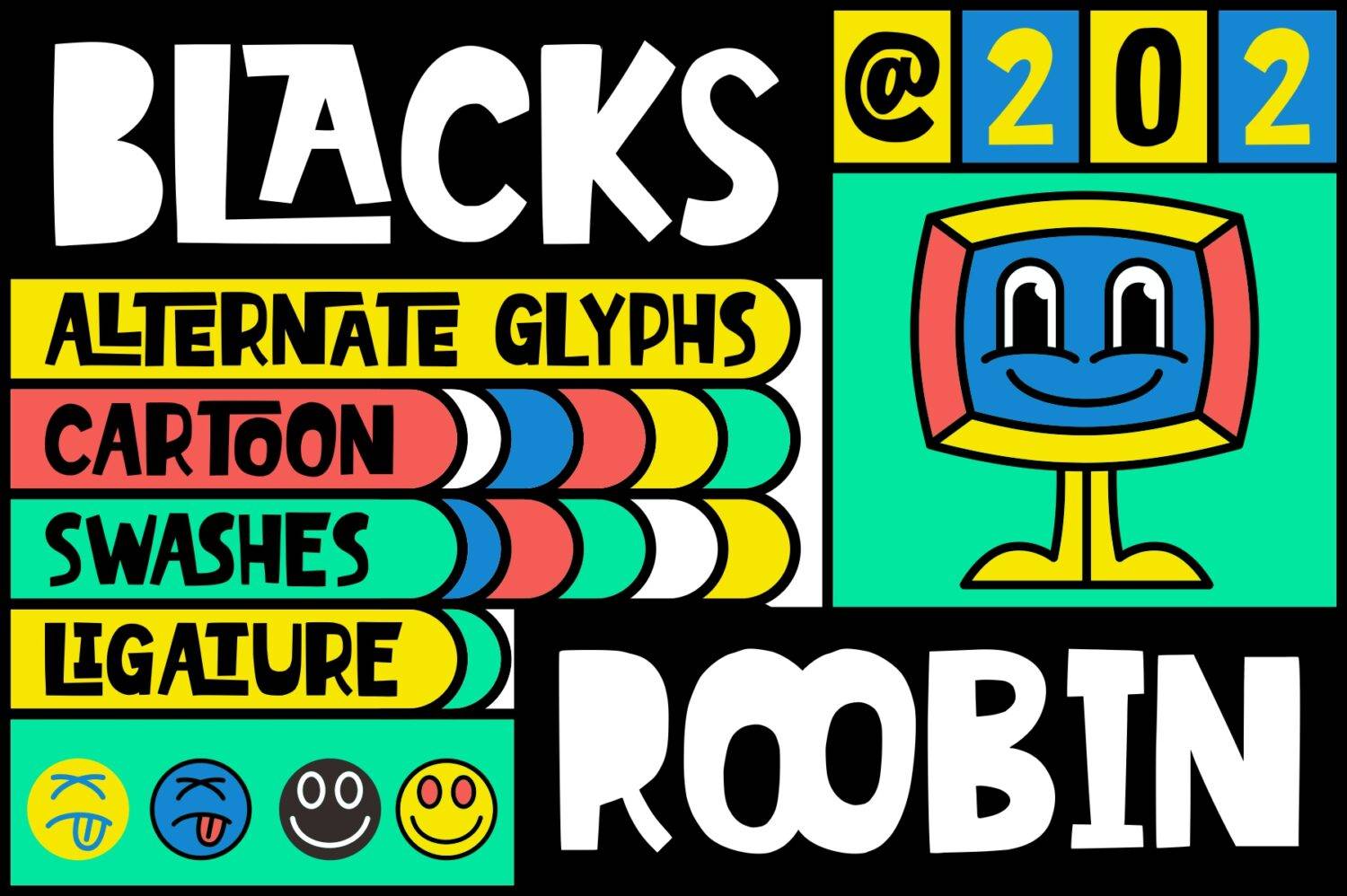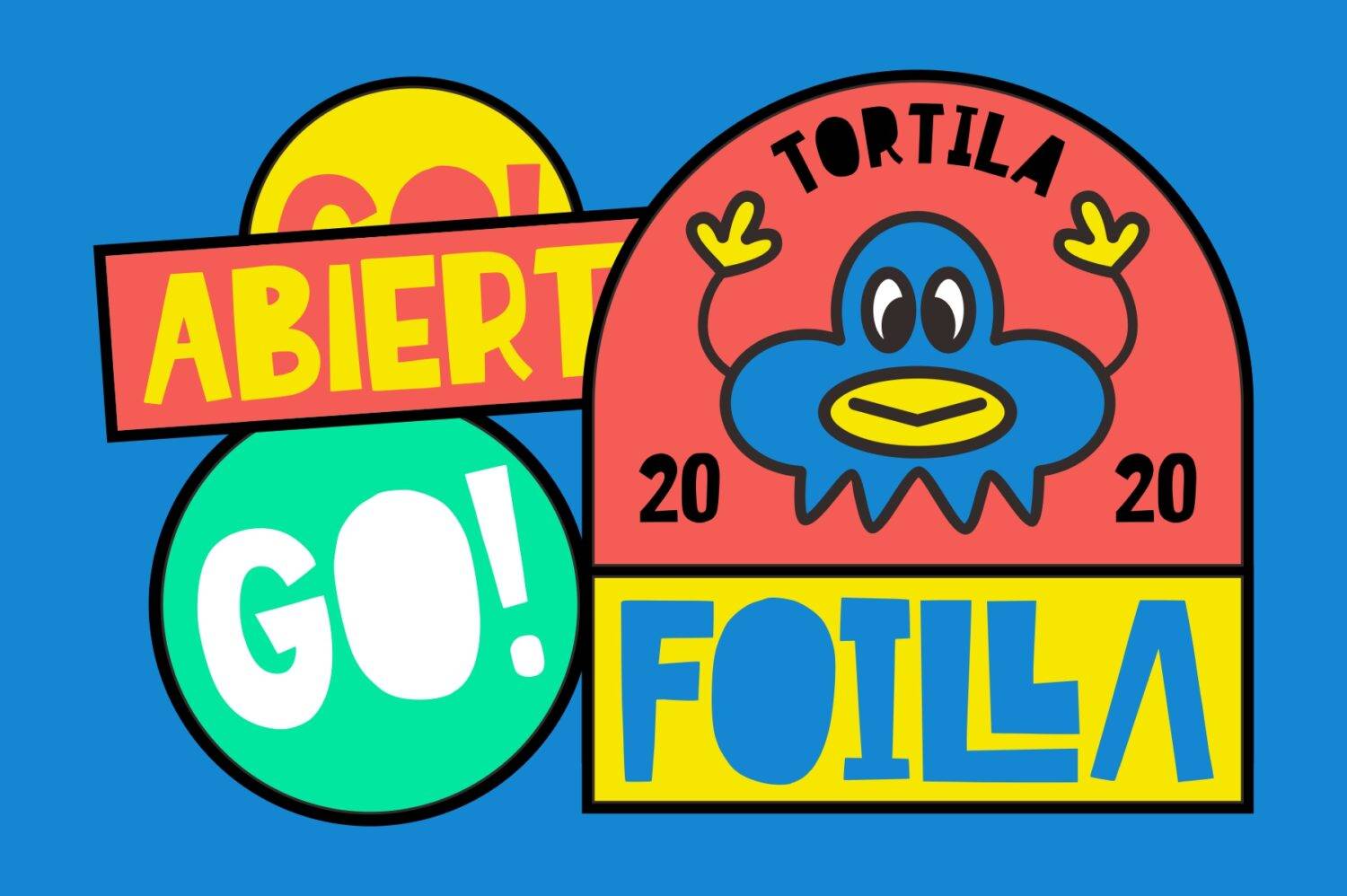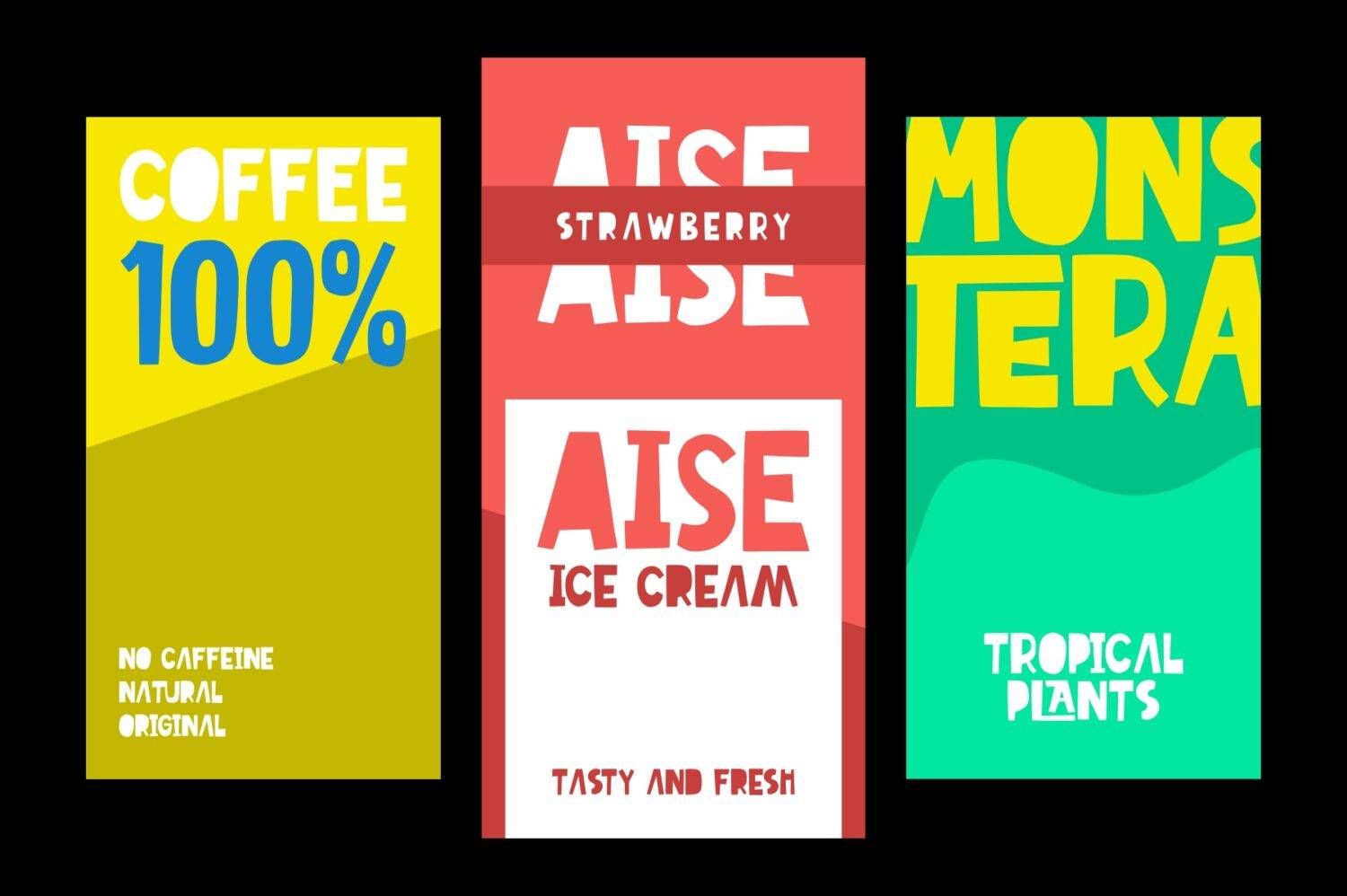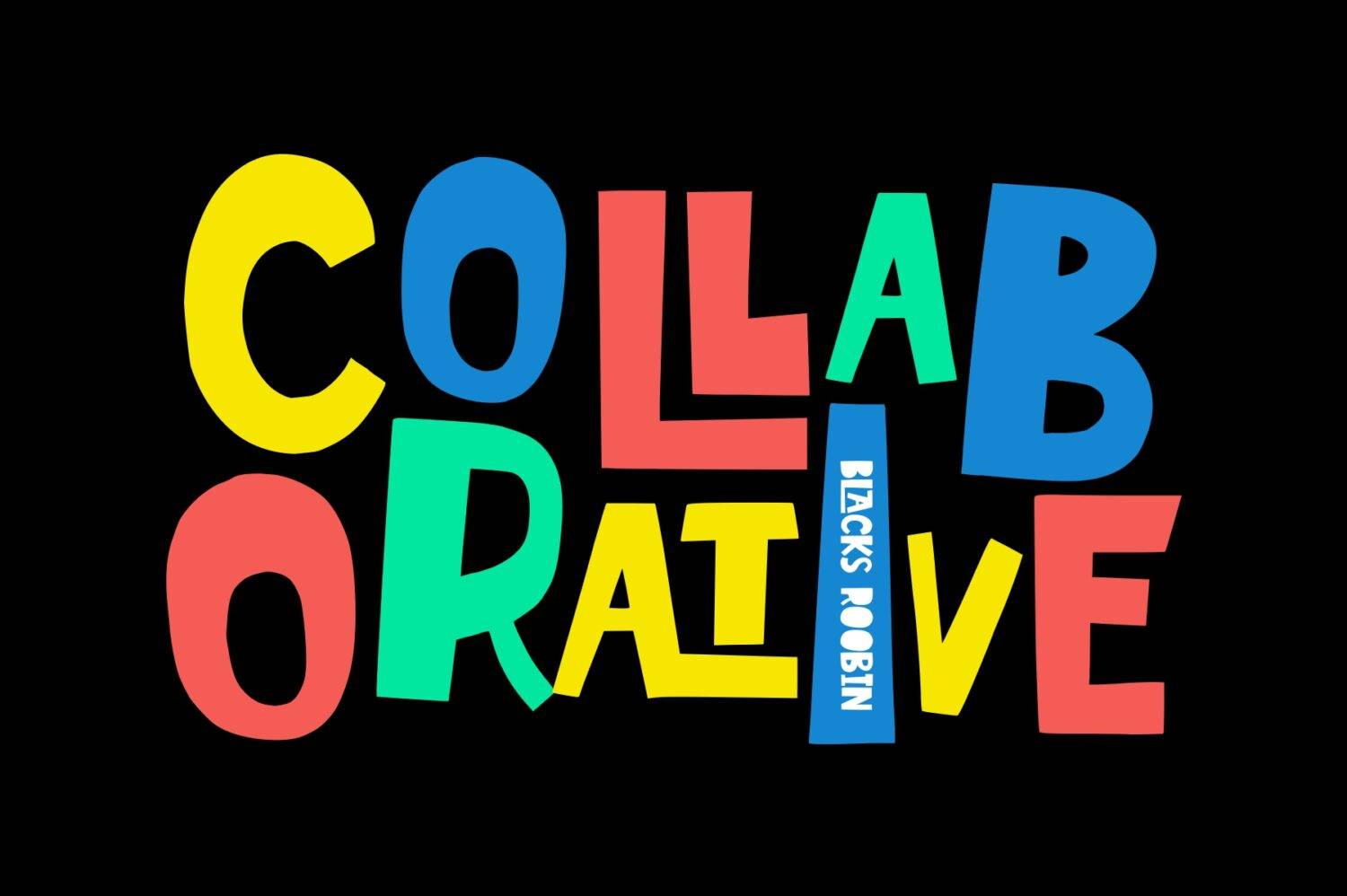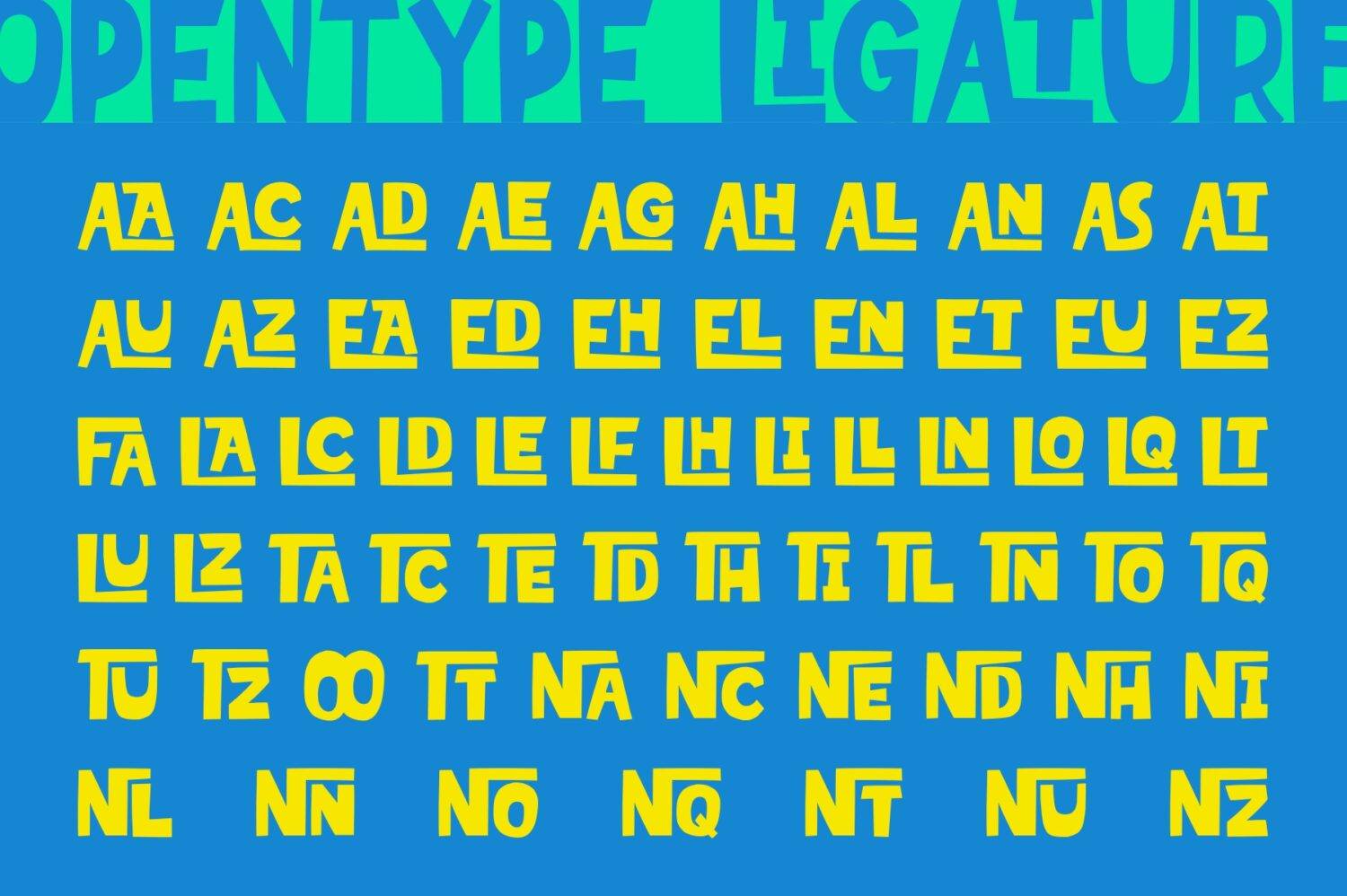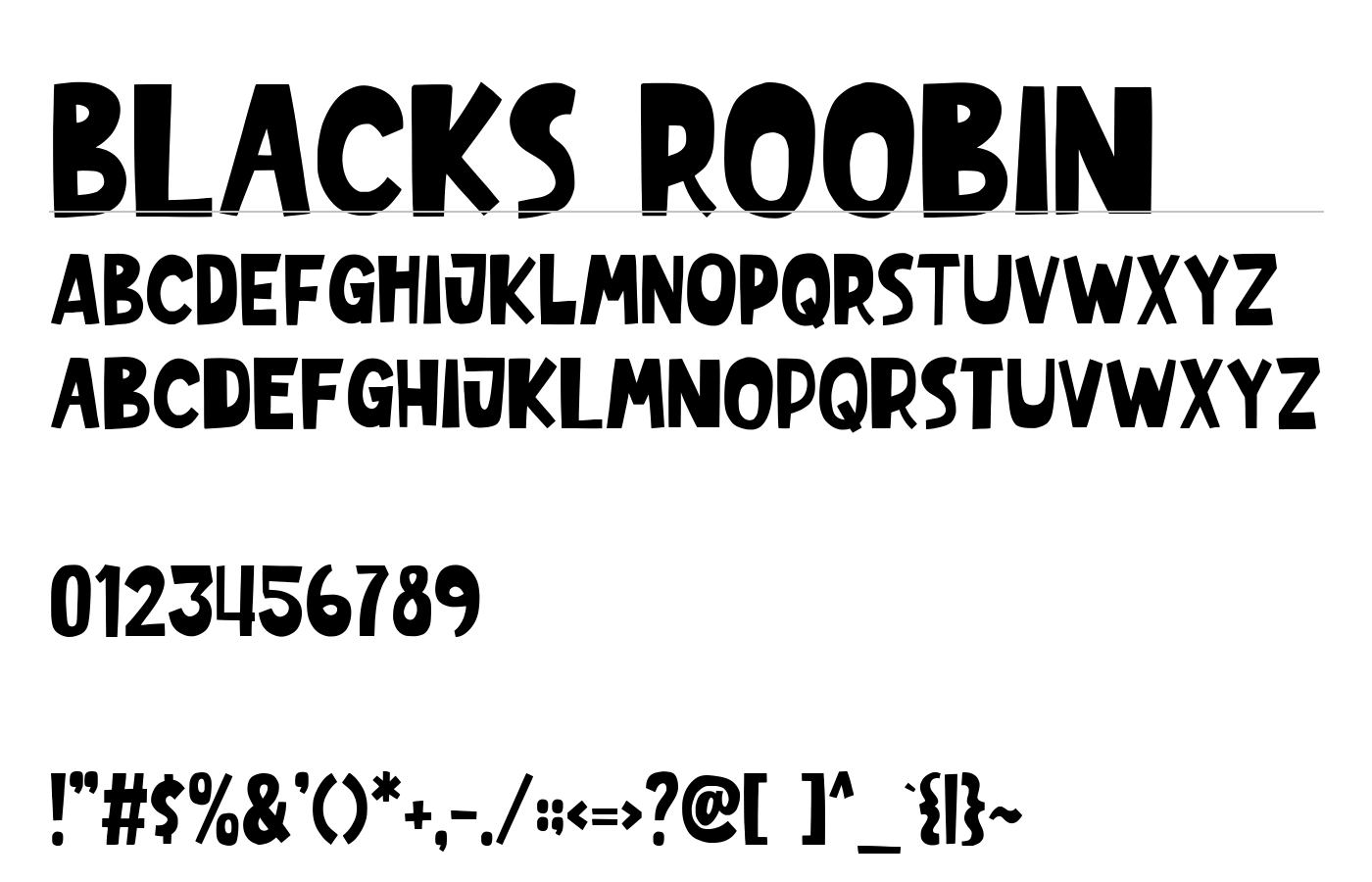
Blacks Roobin is a bold, playful sans serif font with a quirky, hand-drawn feel. Its tall, irregular letterforms and slightly condensed width give it a fun and energetic personality, making it perfect for creative headlines, posters, and branding that want to stand out with a casual, approachable vibe. This font works well where a touch of whimsy and boldness is needed without sacrificing readability.
Blacks Roobin Font
About Blacks Roobin Font
| Font family | Blacks Roobin Font |